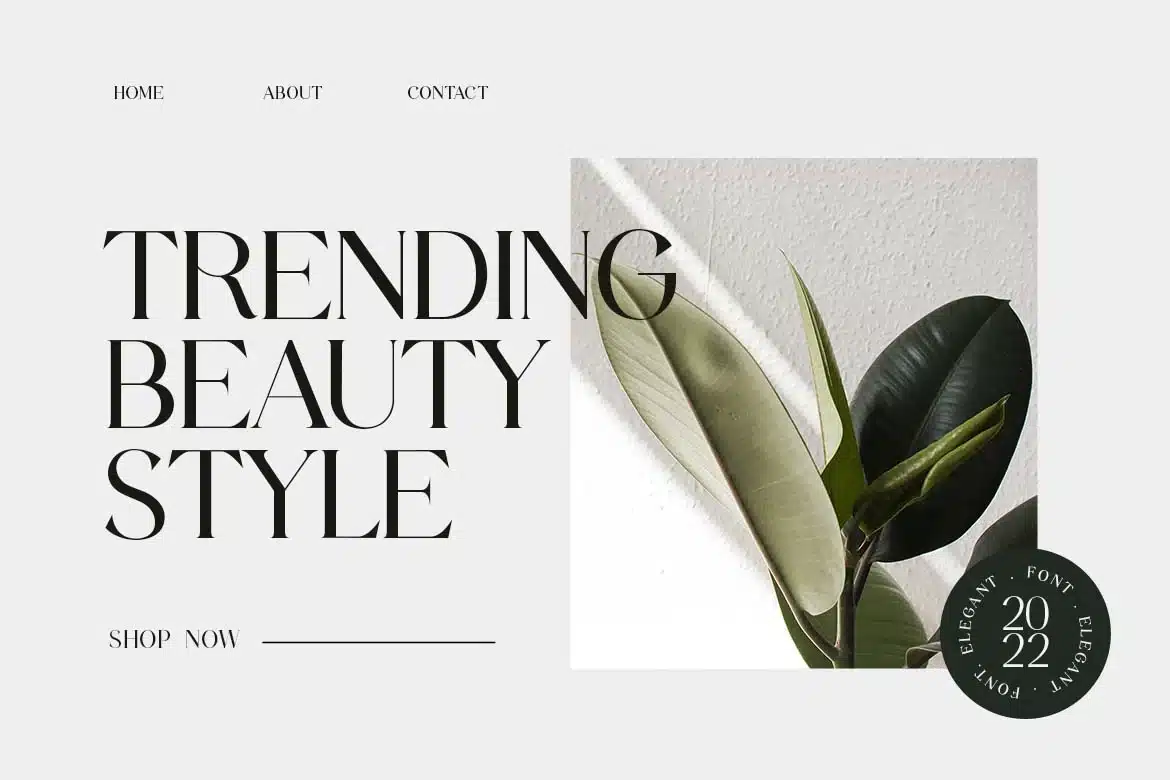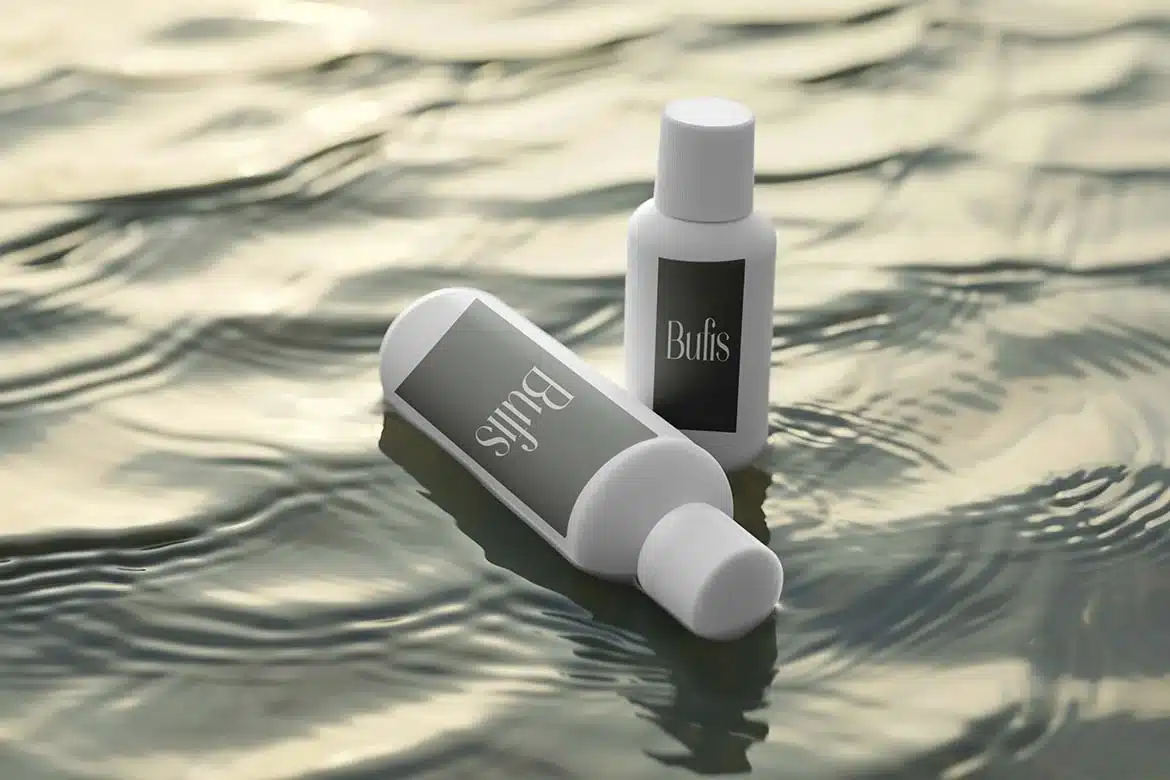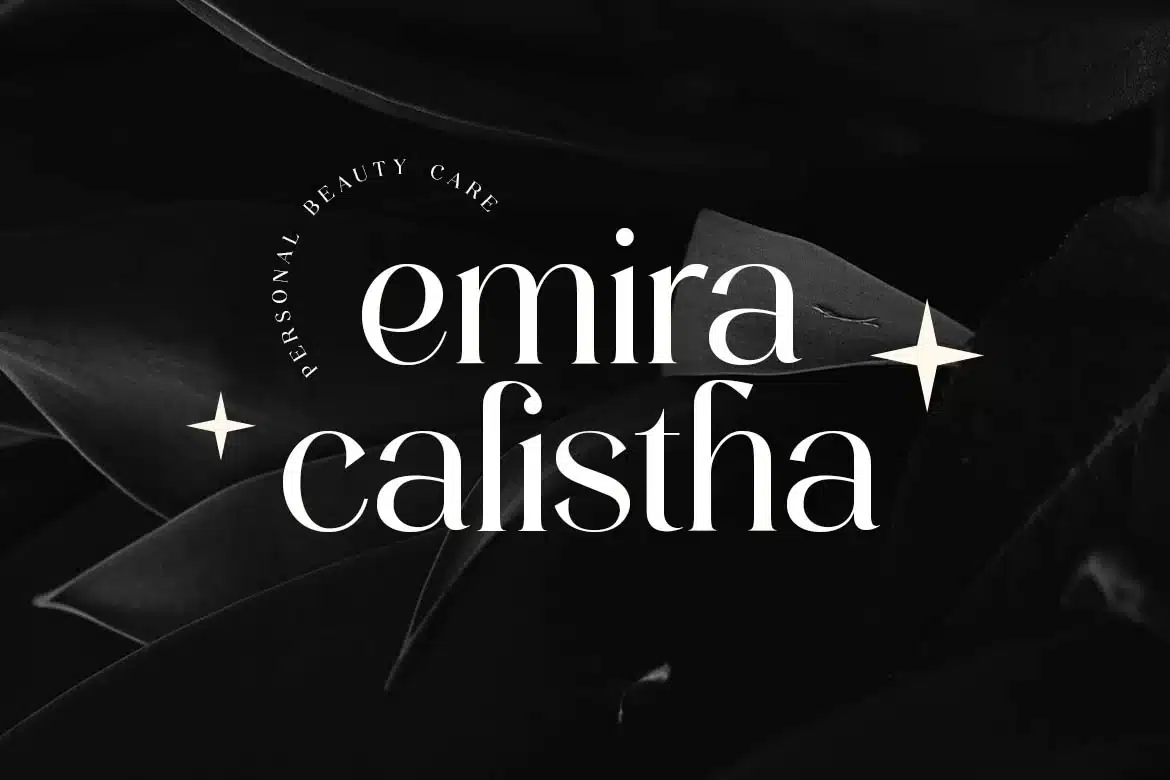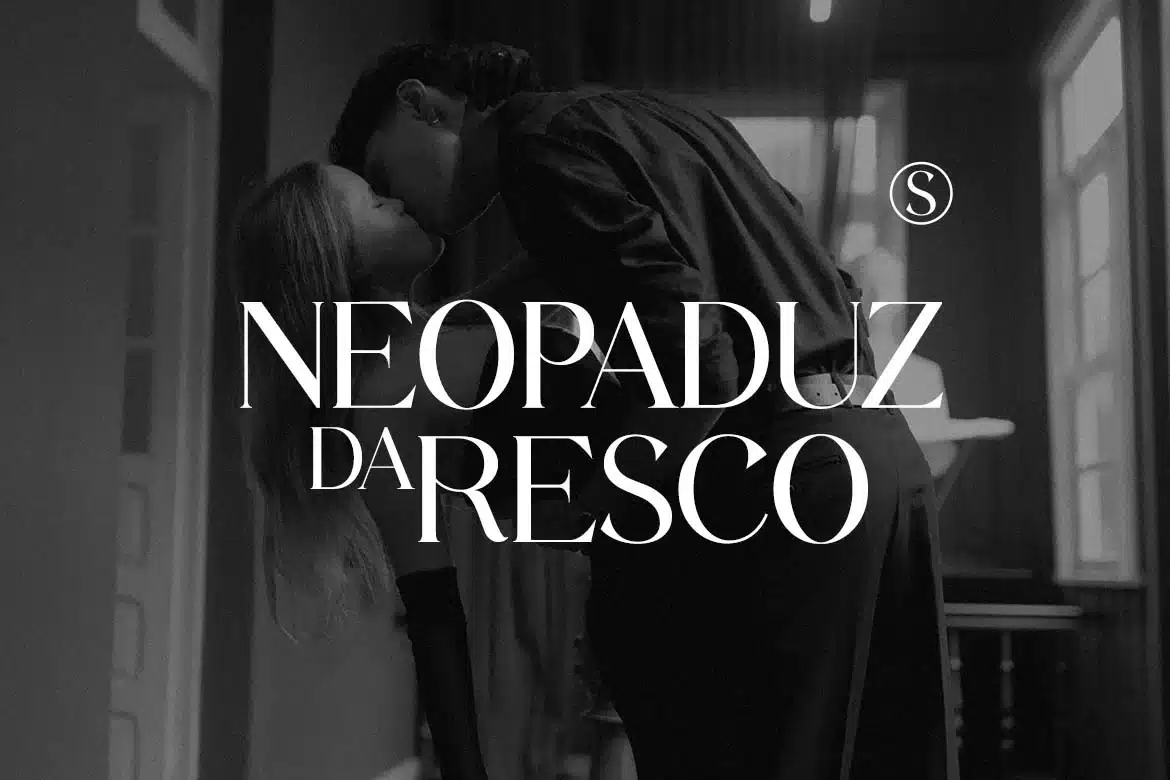
Banfishery Classic Elegant Serif Font
Introducing our new product the name is Banfishery Classic Elegant Serif Font. Banfishery Classic Elegant Serif Font that feels beautiful classy, elegant, and modern. This font is ideally suited for a wide variety of projects, such as signature, stationery, logo, wedding, typography quotes, magazine or book covers, website headers, clothing, branding, packaging design, and more. Also, fashion-related branding or editorial design displays both masculine and feminine qualities.